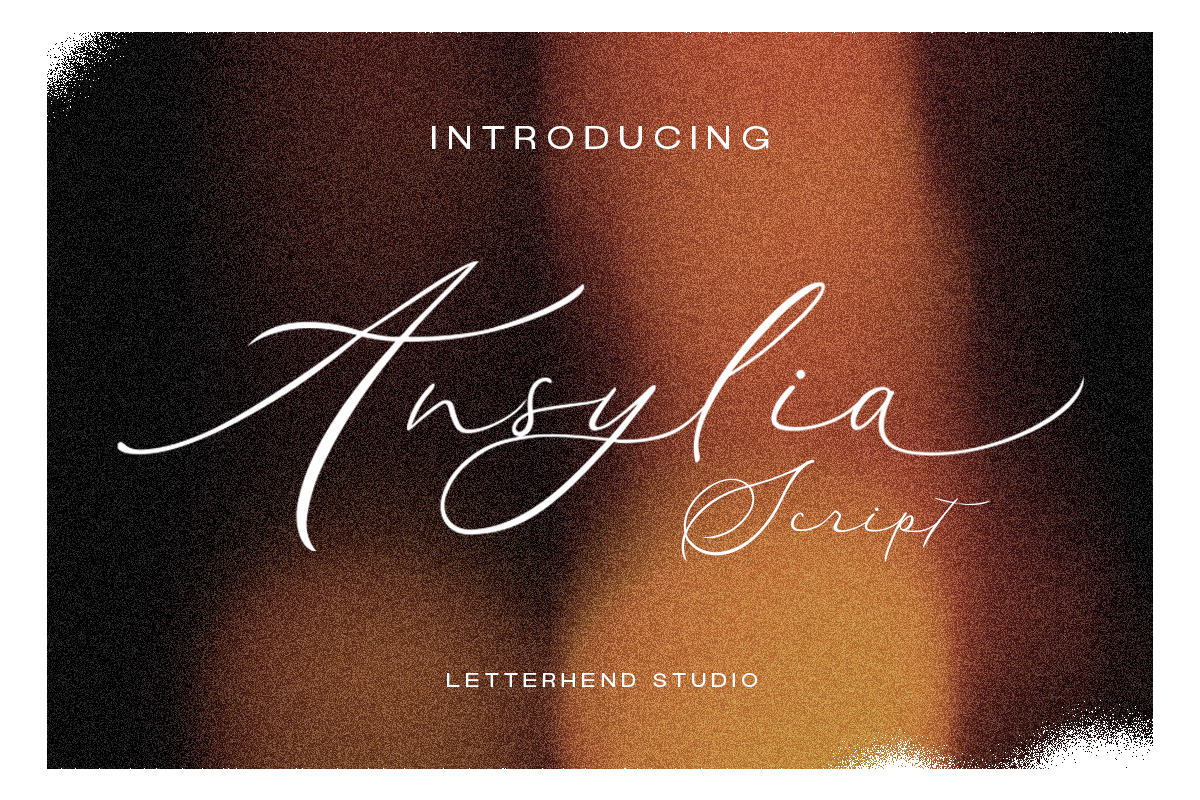
Ansylia Font
The Ansylia Font is perfect for elegant calligraphy studios, luxury wedding planning services, sophisticated beauty salons, high-end fashion boutiques, refined lifestyle magazines, exclusive event stationery, premium cosmetics branding, and graceful personal brands. This exquisite typeface brings timeless feminine elegance and sophisticated charm to any design project requiring delicate beauty and refined grace.
What makes the Ansylia Font so exciting is its masterful embodiment of classical feminine grace through flowing letterforms that seem to dance across the page like silk ribbons in a gentle breeze. The font features elegant curves, delicate flourishes, and refined proportions that evoke the sophisticated beauty of European calligraphy traditions while maintaining contemporary readability and modern appeal.
The Ansylia Font family includes light, regular, medium, and bold weights, each available in upright and italic styles, plus decorative swashes, ornamental flourishes, and elegant ligatures, providing designers with comprehensive tools for creating sophisticated feminine brand experiences and graceful typographic compositions.
Whether you're developing brand identity for high-end beauty services, creating materials for exclusive wedding celebrations, or designing communications for sophisticated lifestyle brands, this font delivers unparalleled elegance. The carefully crafted letterforms maintain perfect readability while radiating the refined grace and feminine sophistication that resonates with audiences who appreciate beauty, quality, and timeless style.
Luxury professionals value the font's ability to communicate elegance and sophistication without appearing overly ornate or artificial. The graceful design elements create immediate recognition of quality and refinement while helping brands establish emotional connections with audiences who seek beauty, grace, and sophisticated feminine expression in their lifestyle choices.
The Ansylia Font excels in applications where feminine elegance and luxury perception are paramount, from premium beauty packaging to exclusive event materials. The font's graceful presence enhances brand value while maintaining excellent readability across various sophisticated contexts.